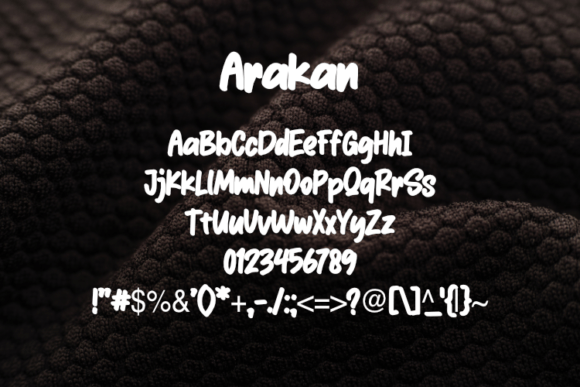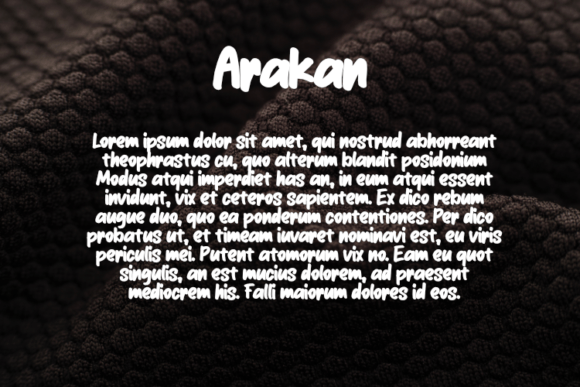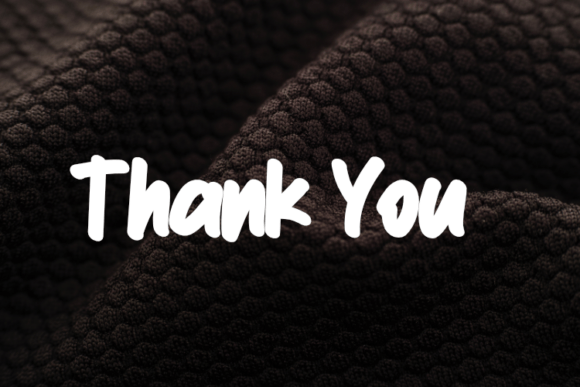
Arakan Font: Elevate Your Designs with Versatility and Style
In the world of design, fonts play a crucial role in bringing creativity to life. For designers and crafters, finding the perfect font that combines style, versatility, and accessibility can be a daunting task. This is where Arakan Font comes into play, revolutionizing the way we approach design. Arakan is more than just a font; it’s a creative tool designed to liven up your apparel and product designs. Whether you’re creating a vibrant t-shirt design or a unique product label, Arakan stands out, blending seamlessly into various design schemes and software.
The Power of Versatility
Designed for Accessibility
One of the standout features of Arakan Font is its focus on accessibility. In an era where design inclusivity is paramount, Arakan ensures that your creations can be enjoyed by a broad audience. Its clear and readable design makes it perfect for use in various contexts, from digital platforms to print materials. Whether you’re designing for a global audience or aiming to make your products more inclusive, Arakan helps you achieve your goals with ease.
Breathing Life into Your Designs
Arakan Font is not just about functionality; it’s also about making a statement. Its unique style and character bring a fresh vibe to any design project. Imagine creating a t-shirt that pops with a bold quote, or a product label that captures the essence of your brand’s personality. Arakan makes this possible, offering a wide range of design possibilities that can elevate your projects from ordinary to extraordinary.
Why Choose Arakan Font?
There are several reasons why Arakan Font should be your go-to choice for your design projects:
• Versatility: Works well across different design schemes and software.
• Accessibility: Designed to be inclusive and readable.
• Style: Adds a unique touch to your designs.
Tips for Maximizing Arakan’s Potential
To get the most out of Arakan Font, consider the following tips:
• Experiment with Colors: Arakan looks great in various colors and gradients.
• Mix and Match: Combine Arakan with other fonts for dynamic designs.
• Play with Sizes: Use different font sizes to create visual hierarchy.
Arakan Font is more than just a font; it’s a creative tool that brings versatility, accessibility, and style to your design projects. Whether you’re a professional designer or a crafter, Arakan has something to offer. Its compatibility with various design software, coupled with its unique style, makes it an excellent addition to your design arsenal. So, why settle for ordinary when you can create something extraordinary with Arakan Font?